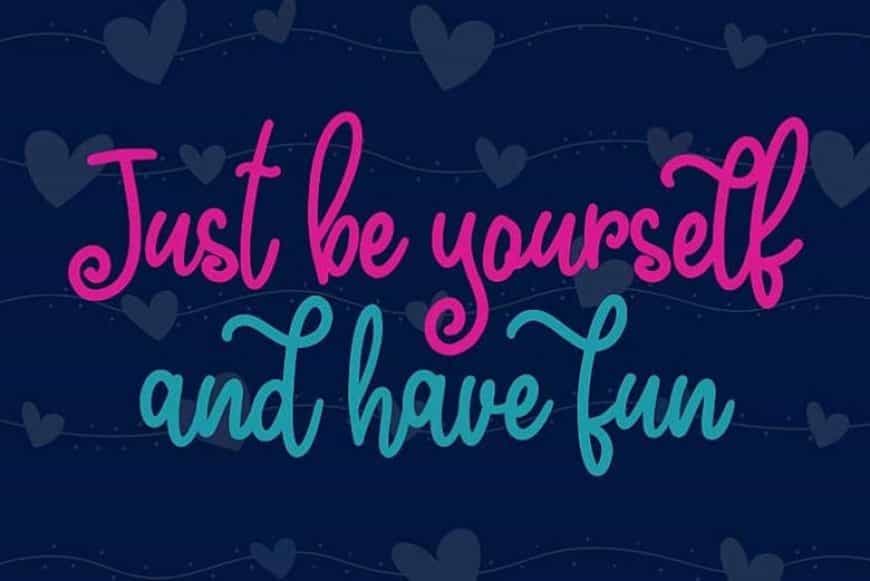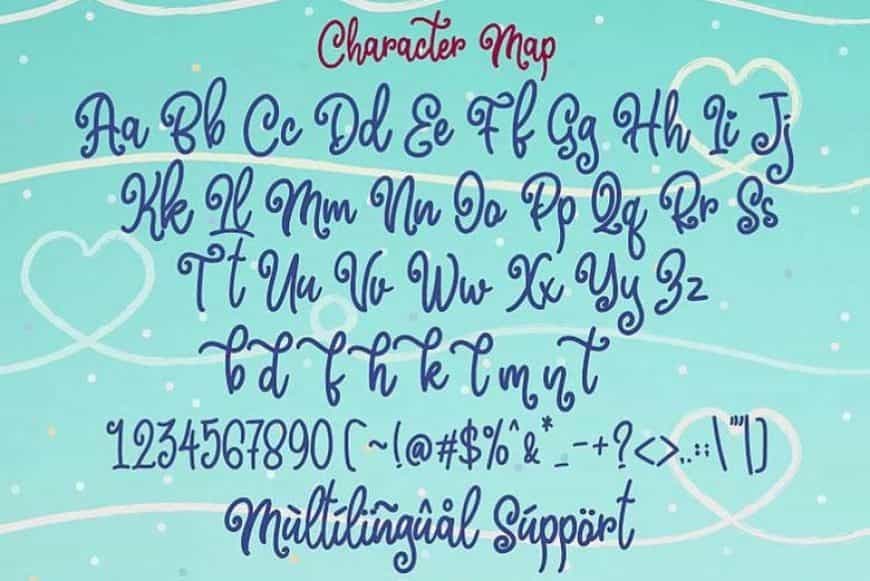
Discover Marline Script Font, part of the Calligraphy Handwritten collection—a versatile and unique font perfect for adding a personal touch to your projects. Download it for free and enjoy crafting designs with style, from invitations to social media posts. This font is available exclusively for personal use, giving you the freedom to create without limits. Unlock your creativity with Marline Script Font today!
Marline: This is a script with swashes added. Its beauty will light your journey designing writing projects.